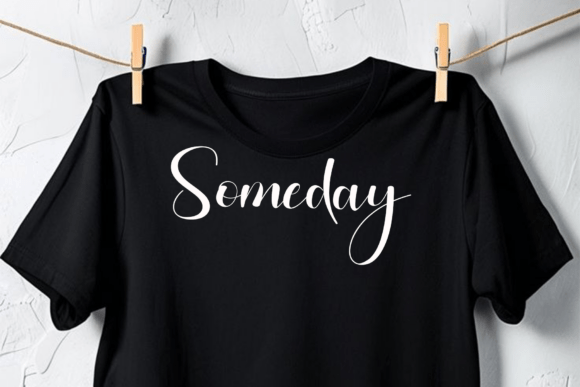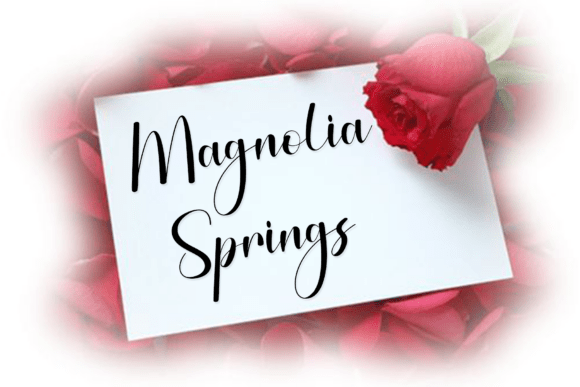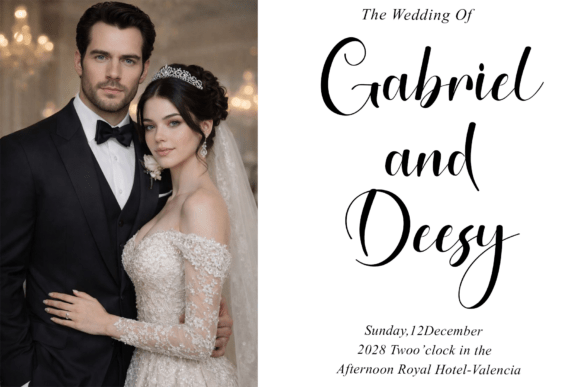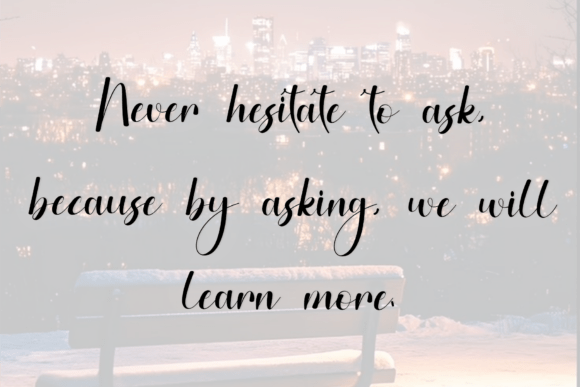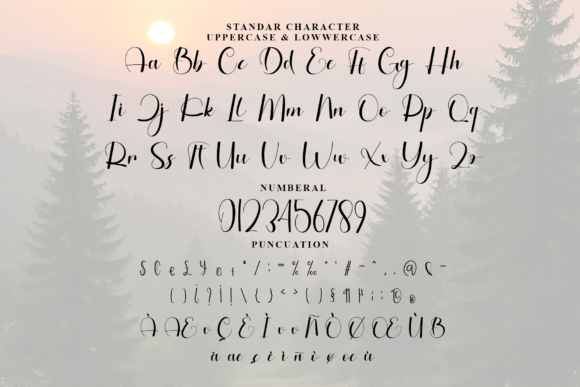
The Diary Font: A Breath of Fresh Air for Your Designs
I’ll never forget the time I was working on a travel photography project, and my client asked me to create a stunning title sequence that would transport their audience to the great outdoors. I scoured the internet for the perfect font, but nothing seemed quite right – until I stumbled upon Diary. This unique and professional font has been a game-changer for my designs, and I’m excited to share its beauty with you.
I’ve had the pleasure of working with Diary for a while now, and here’s what I think:
- ✨ **Elegant and refined aesthetic**: Diary’s tall, thin strokes and subtle, airy slant make it perfect for creating a sophisticated look that’s both fresh and elegant.
- ✅ **Clean and approachable style**: This font is ideal for travel photography, outdoor gear branding, and web design, as it evokes a sense of clarity and crispness that’s hard to resist.
- ⚠️ **Limited character set**: While Diary has a wide range of characters, it’s not a full-featured font with extensive language support.
- 🤔 **Occasional hinting issues**: In some applications, Diary’s hinting can be a bit wonky, leading to slightly inconsistent line widths.
The Story Behind Diary
Diary was designed by a team of typographers who wanted to create a font that would evoke the feeling of a crisp mountain breeze. Inspired by the elegance of handwritten journals, they crafted a font that’s both refined and approachable. The result is a unique and professional font that’s perfect for creative projects.
| Font Name | Diary Font |
| Author | Preketek texs |
| What is the best use for Diary? | Diary is ideal for travel photography, outdoor gear branding, and sophisticated web design. |
| Is Diary a script font? | No, Diary is a handwritten font with a unique, elegant aesthetic. |
| Does Diary support multiple languages? | While Diary has a wide range of characters, it’s not a full-featured font with extensive language support. |